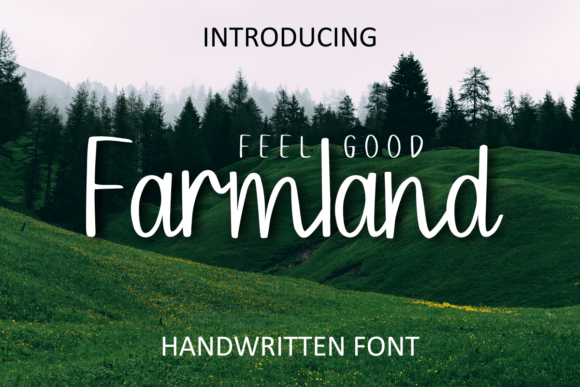
Journey into the realm of Farmland Font, a captivating script font family that will ignite your creativity and elevate your designs to new heights. Inspired by the beauty of nature, Farmland Font exudes a rustic charm that is both timeless and utterly captivating.
With its enchanting curves and organic flow, Farmland Font is the perfect choice for adding a touch of whimsy and elegance to your projects. From logos and branding to photography and special event invitations, Farmland Font effortlessly adapts to any design style, bringing a unique and unforgettable touch.
Unleash your imagination and let Farmland Font guide you through a world of creative possibilities. Its elegant strokes and versatile nature make it the ideal font for crafting stunning logos that leave a lasting impression. Create eye-catching branding materials that exude sophistication and charm, or design one-of-a-kind labels that add a touch of rustic elegance to your products.
Allow Farmland Font to transport you to a realm of creativity where your ideas come to life in breathtaking detail. Its versatility knows no bounds, making it the perfect choice for photographers seeking to enhance their images with a touch of timeless beauty. Whether you're creating stunning wedding invitations, designing flyers for special events, or crafting personalized gifts, Farmland Font will add a touch of magic to every project.
Experience the allure of Farmland Font today and discover the endless possibilities that await you. Let its enchanting charm captivate your audience and leave them yearning for more. Farmland Font is not just a font; it's an artistic journey waiting to be explored.